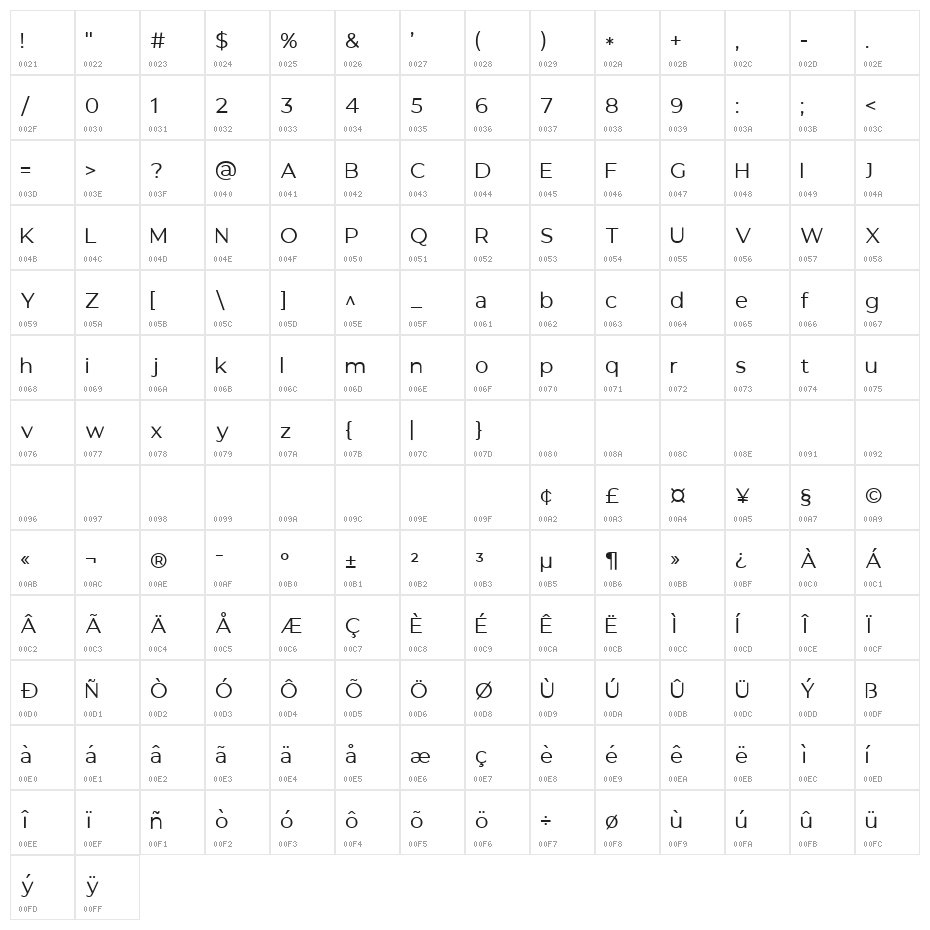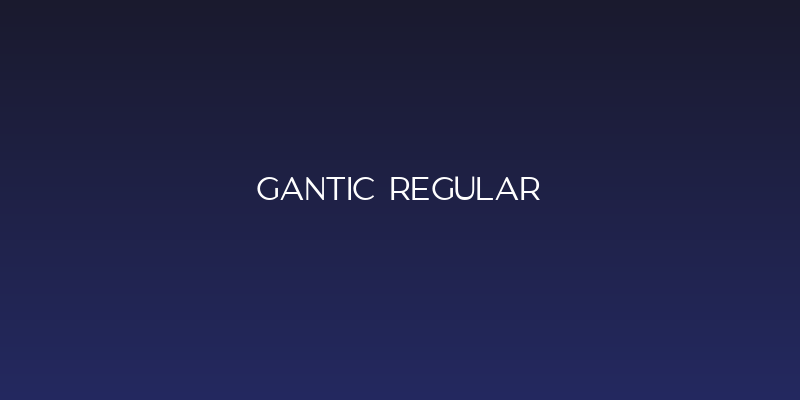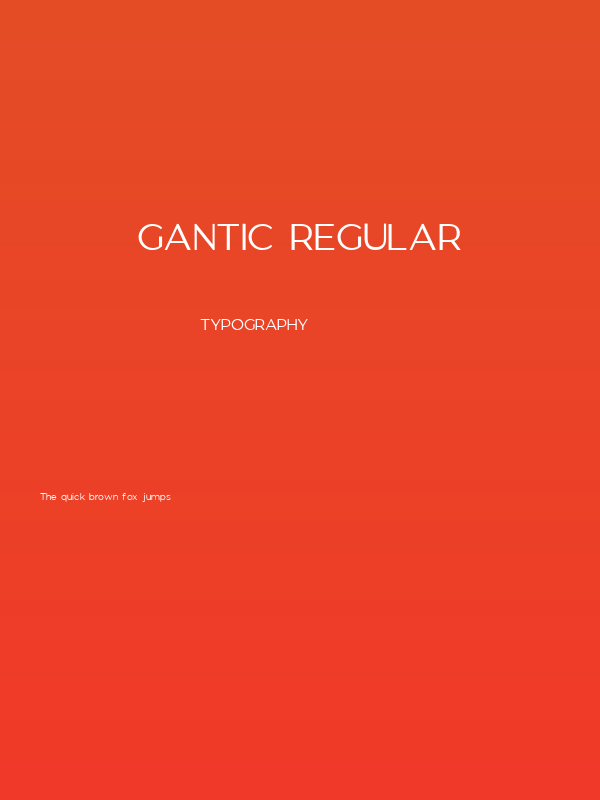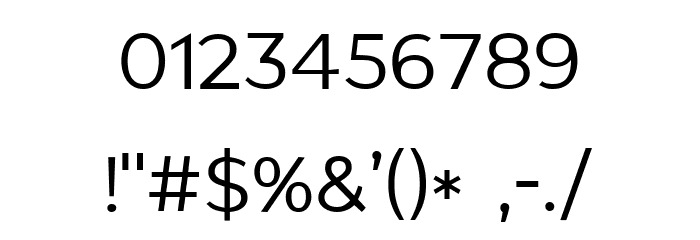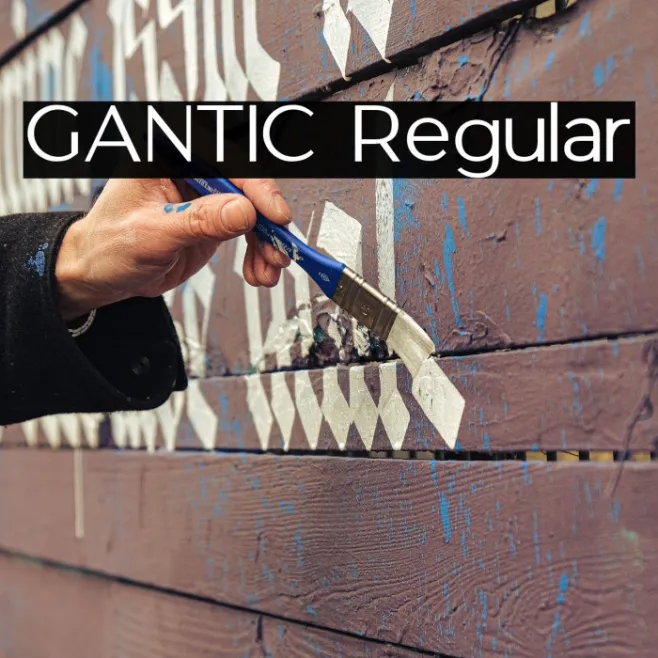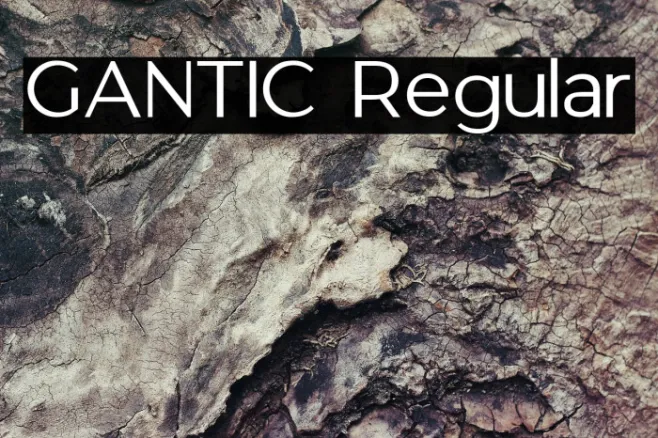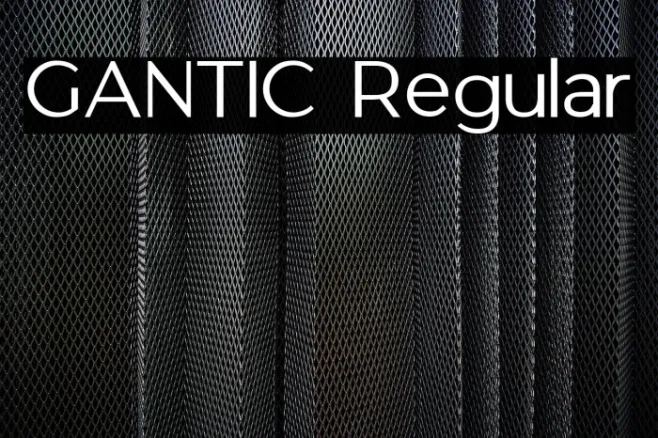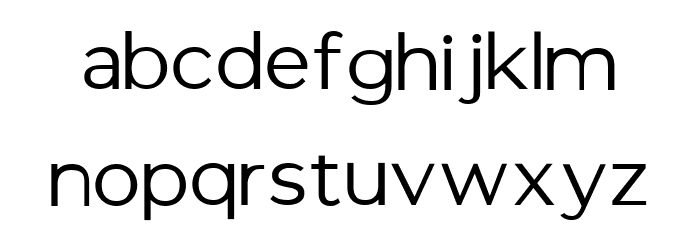
GANTIC Regular Font
GANTIC Regular Description
This typeface features a clean and modern aesthetic with a geometric structure. The characters are evenly spaced, contributing to a balanced and harmonious appearance. The uppercase letters are bold and assertive, while the lowercase letters maintain a consistent and smooth flow. The numerals are clear and easily distinguishable, making them suitable for various applications. The special characters are well-integrated, maintaining the overall sleek design. This font is versatile, offering a contemporary look that can enhance both digital and print media.
| Proposed Projects | Ideal for branding, digital interfaces, editorial design, and advertising campaigns. |